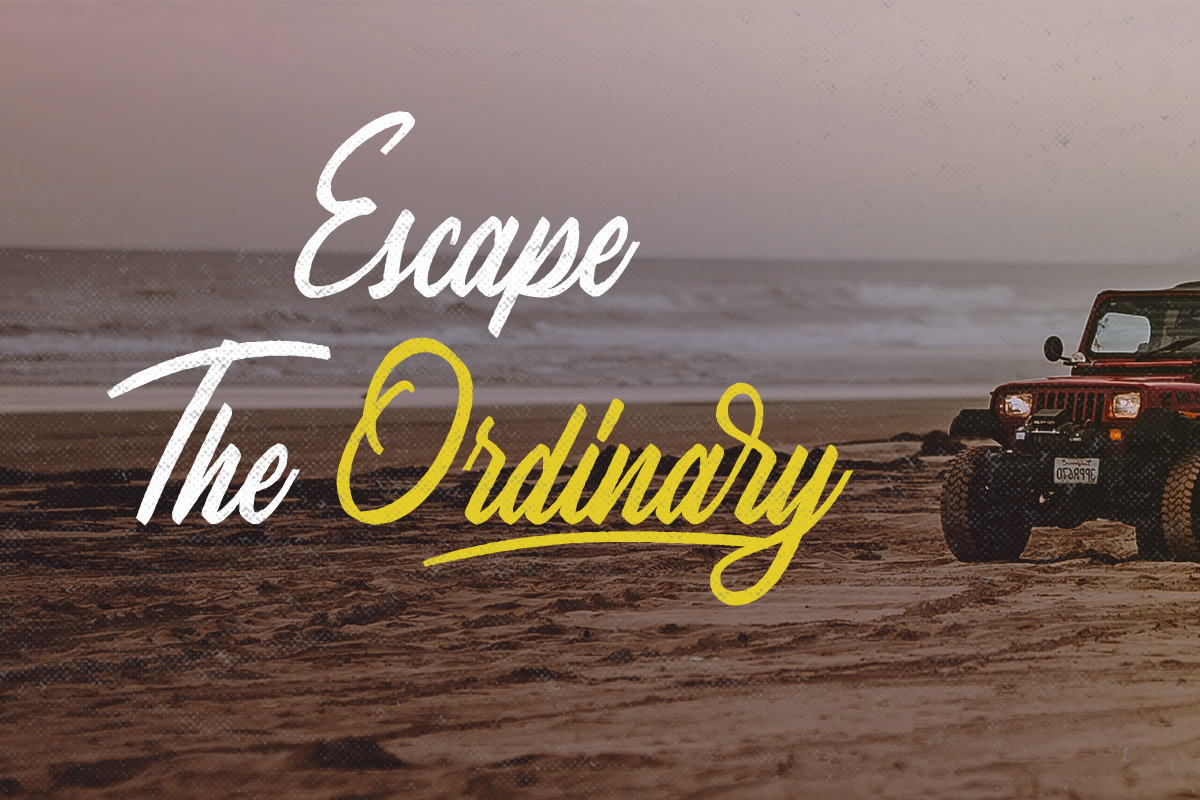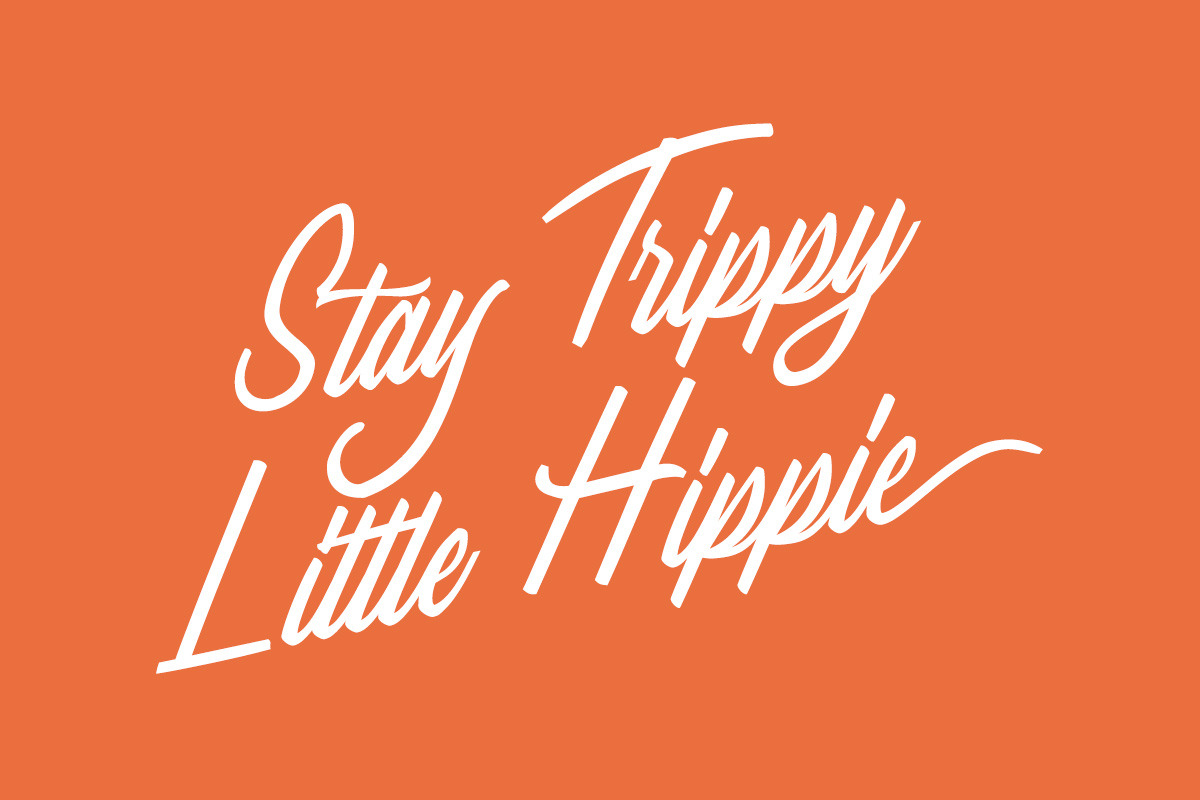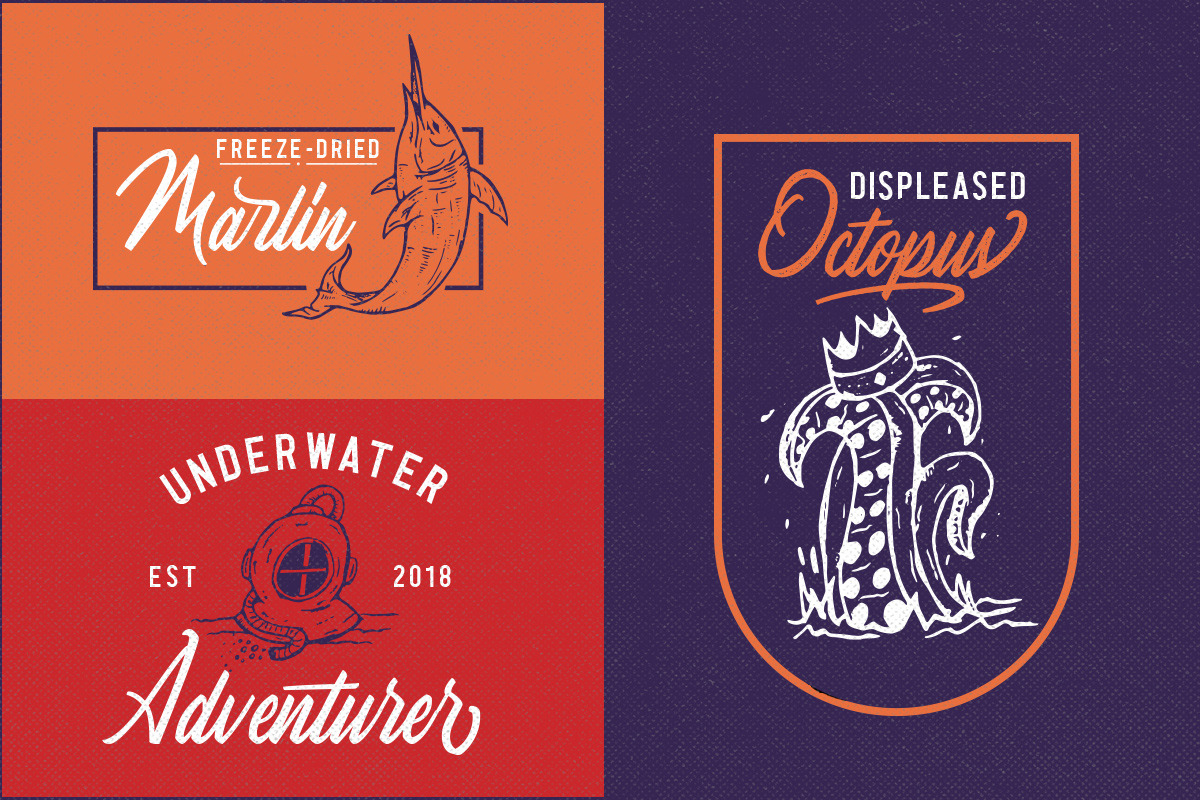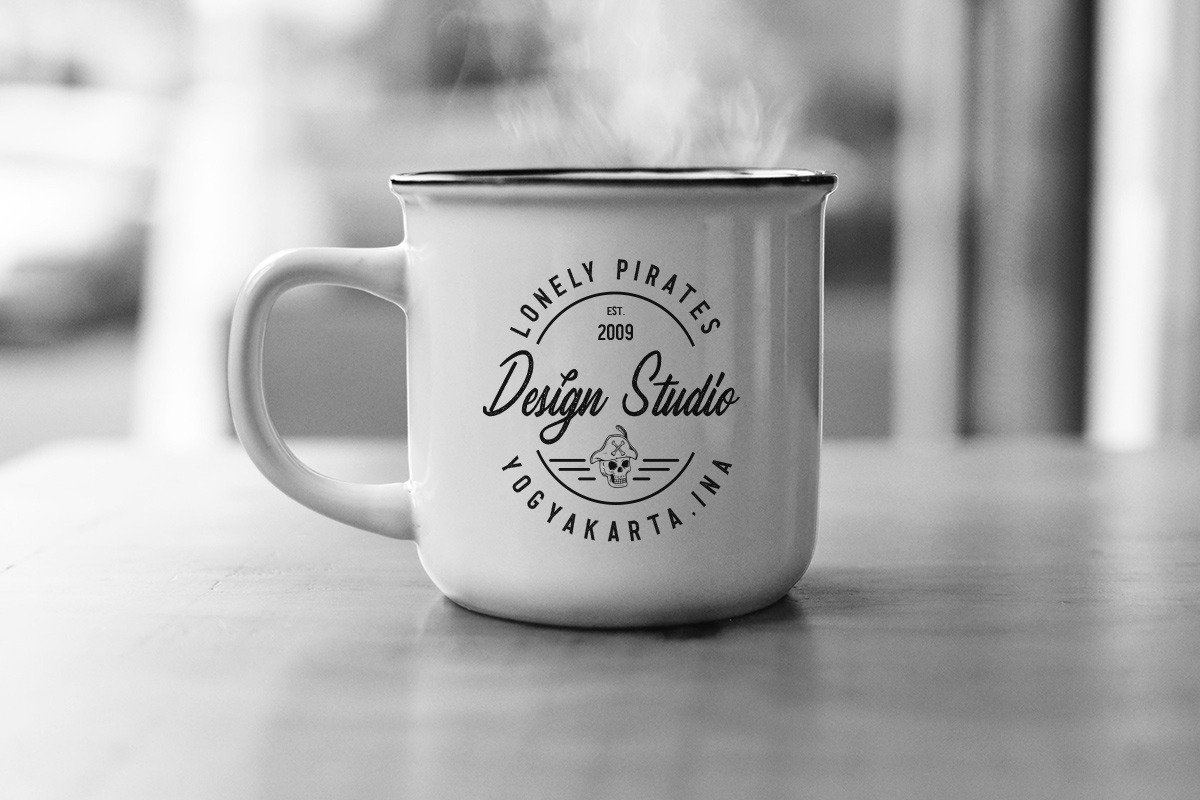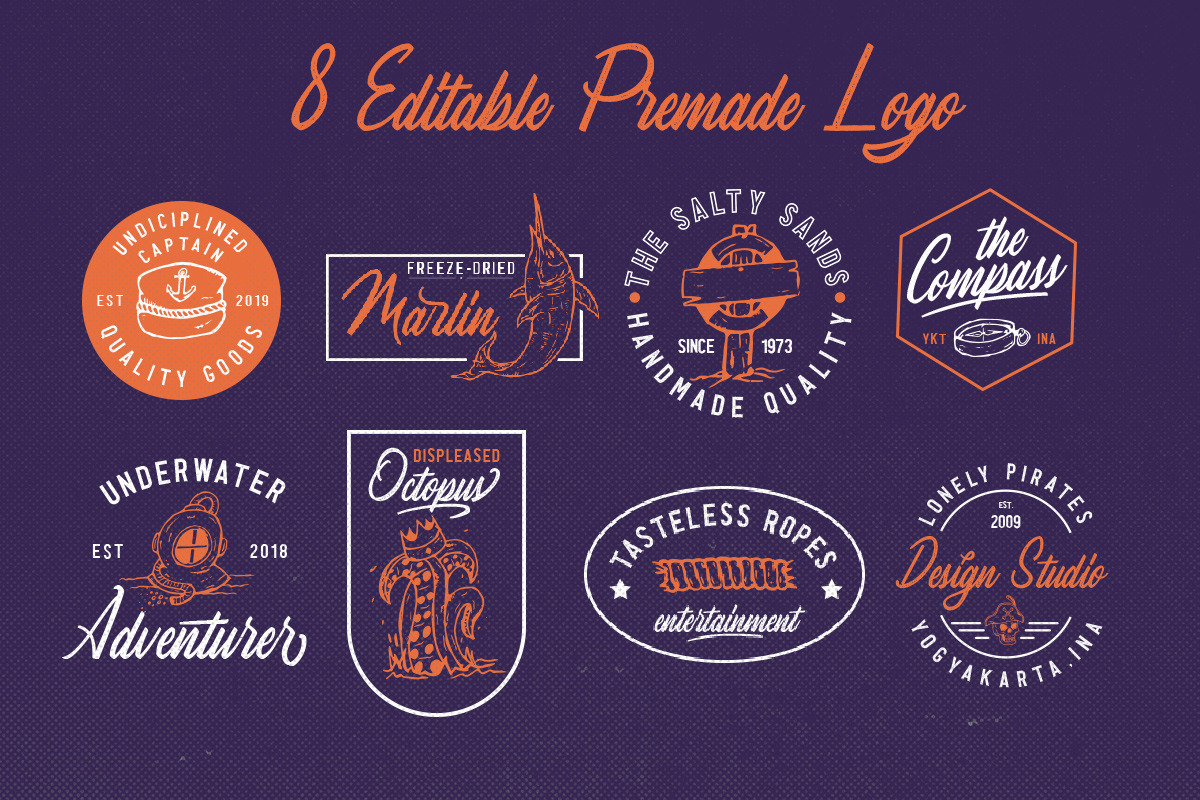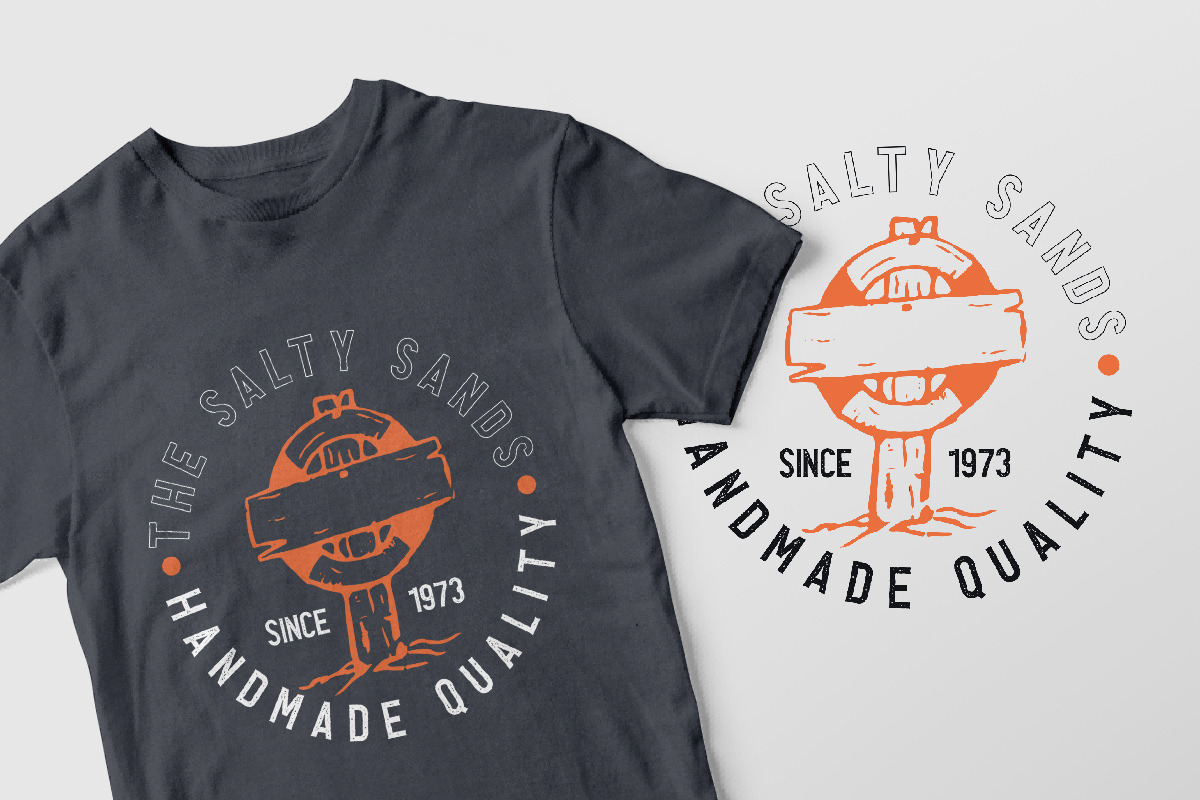
The Greyhound - Font Duo (+BONUS)
Introducing, The Greyhound - Font Duo (+BONUS)
The Greyhound Font is a great font selection for a big range of design projects. These fonts will add a beautiful and light retro charm to any design project! This font is perfect for branding logo, illustration, or apparel design. This font also support multilingual, number and symbol. You also will get 8 Premade Logo and 10 Handdrawn Illustration!